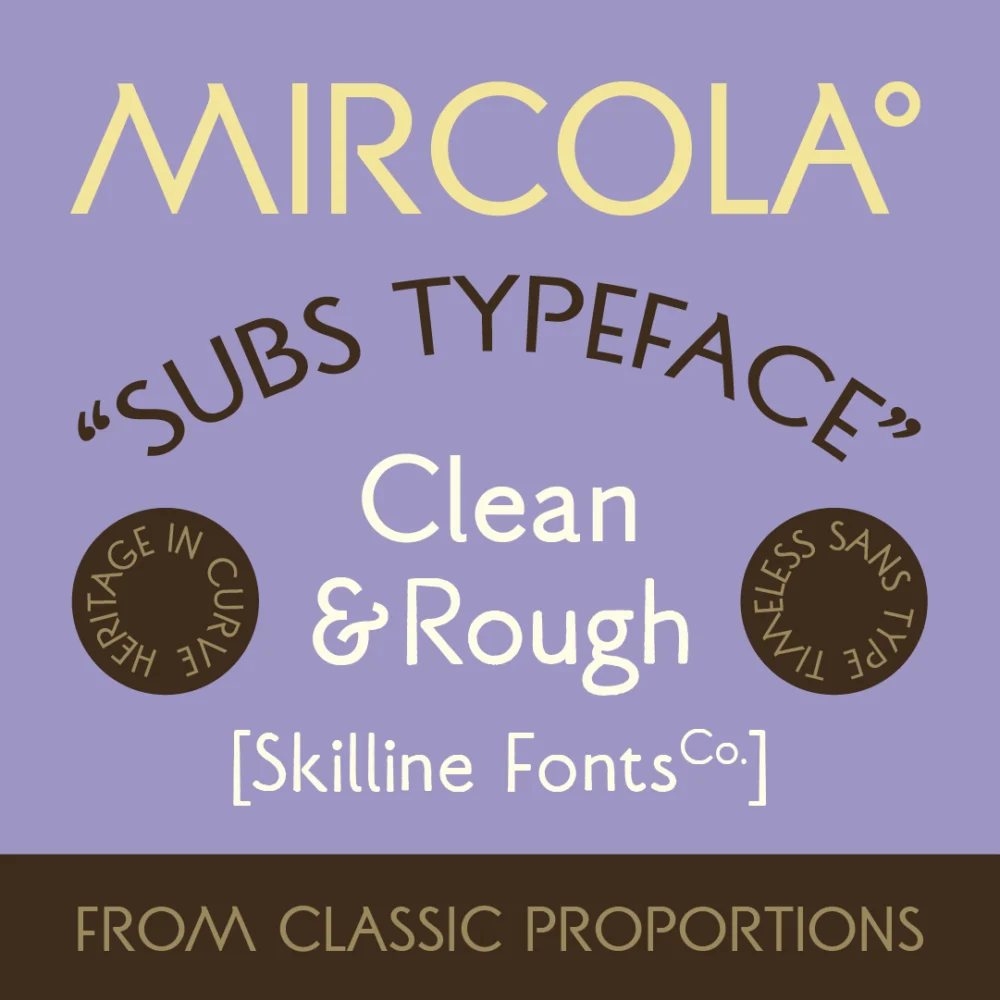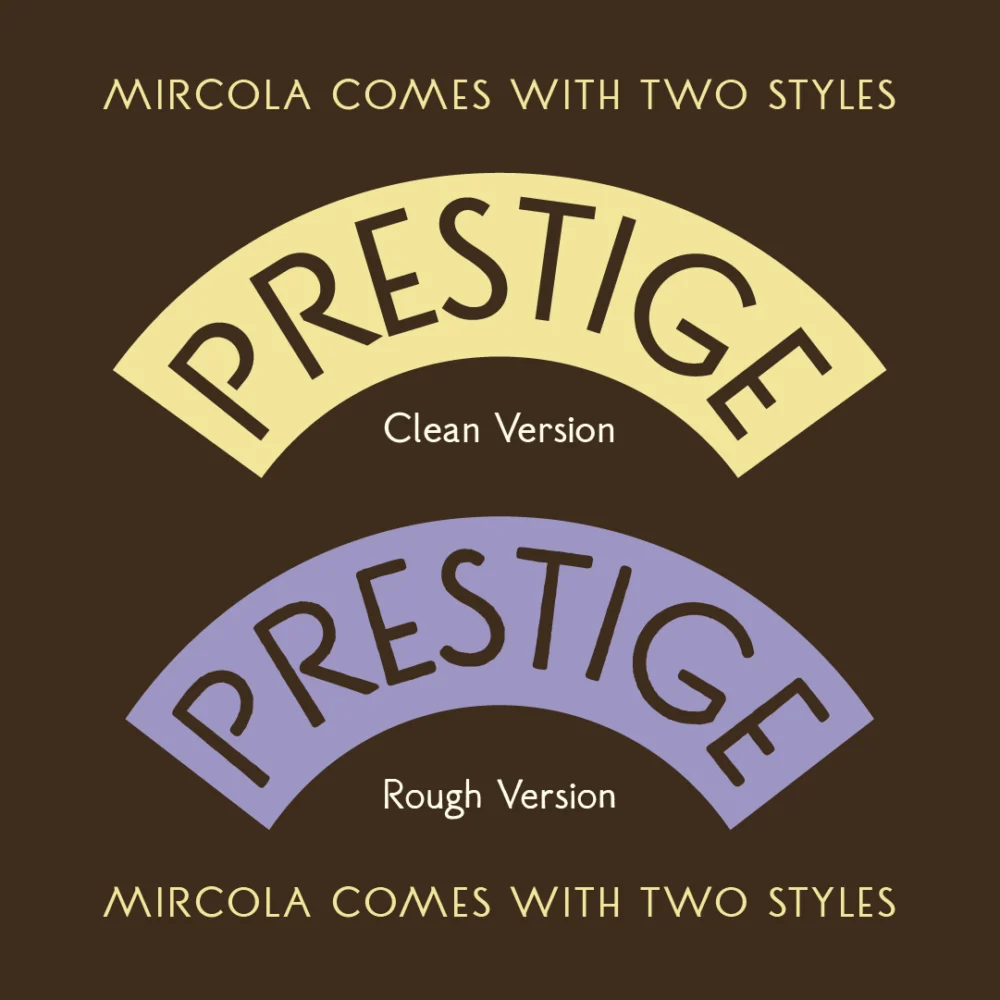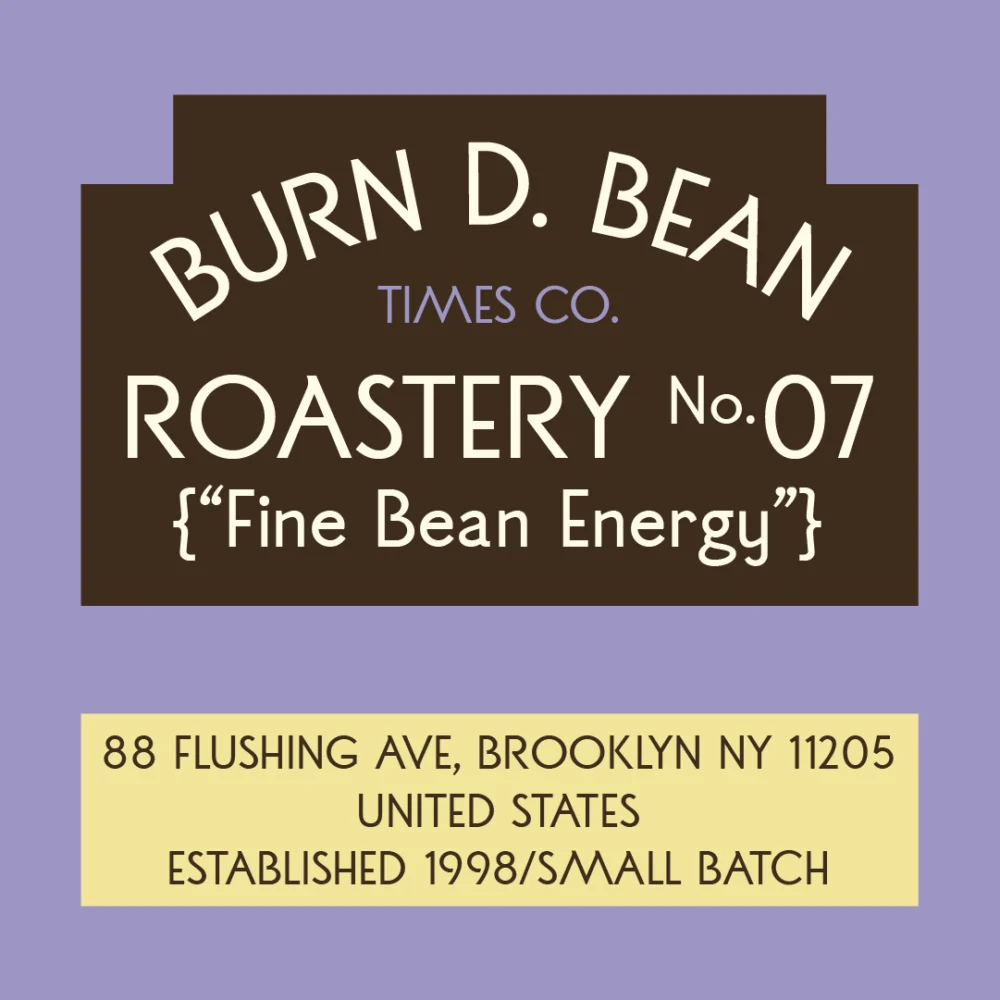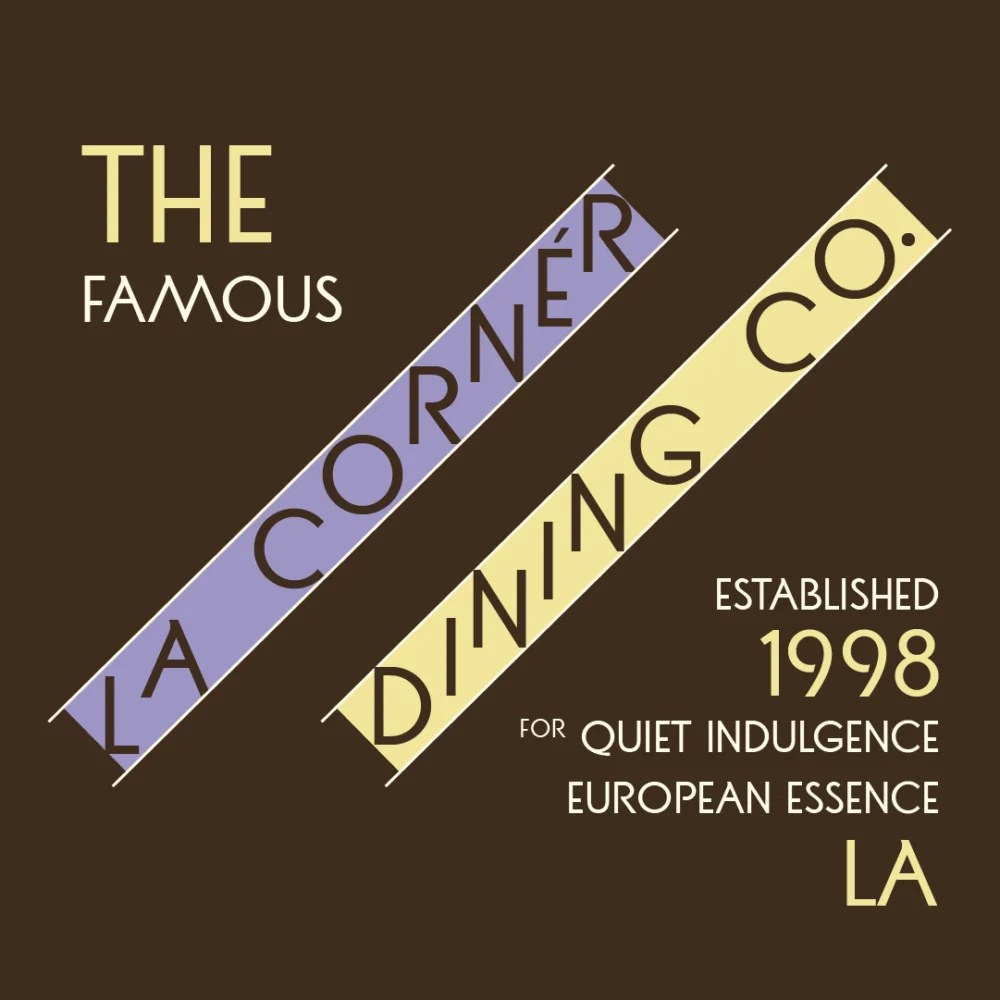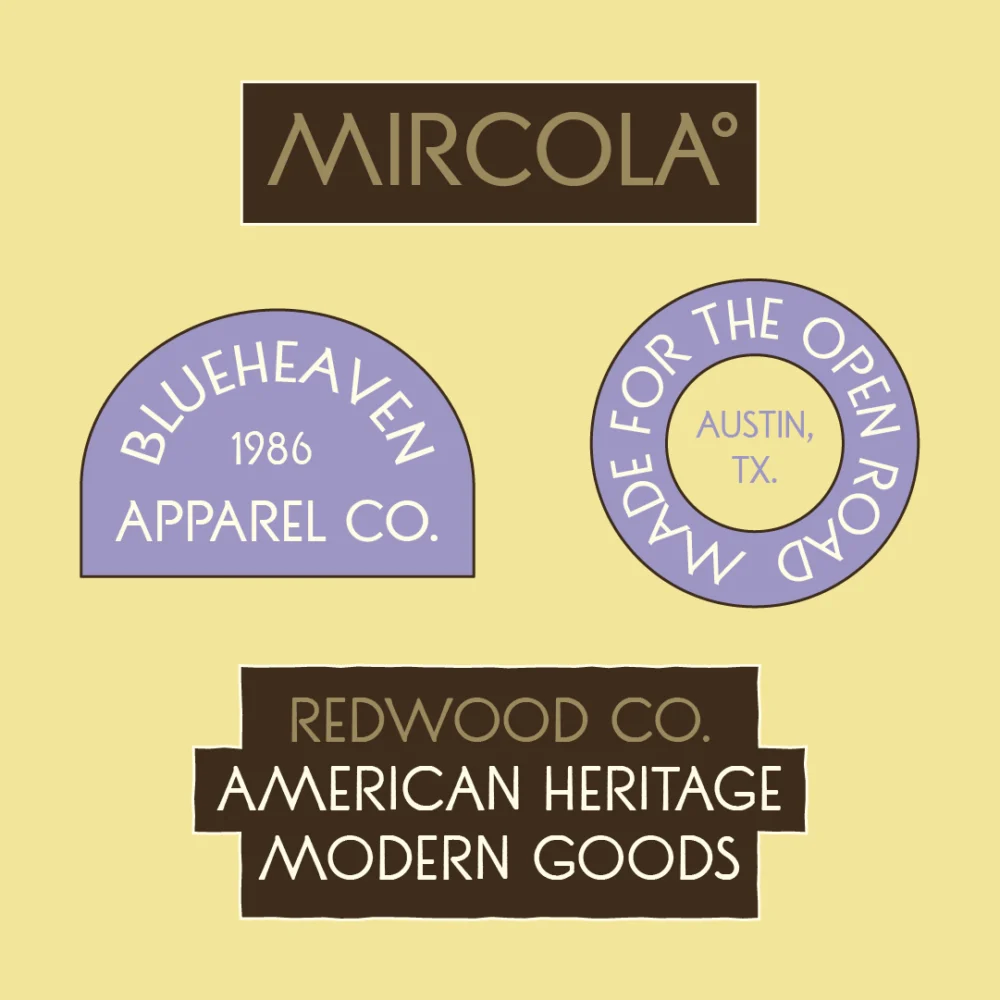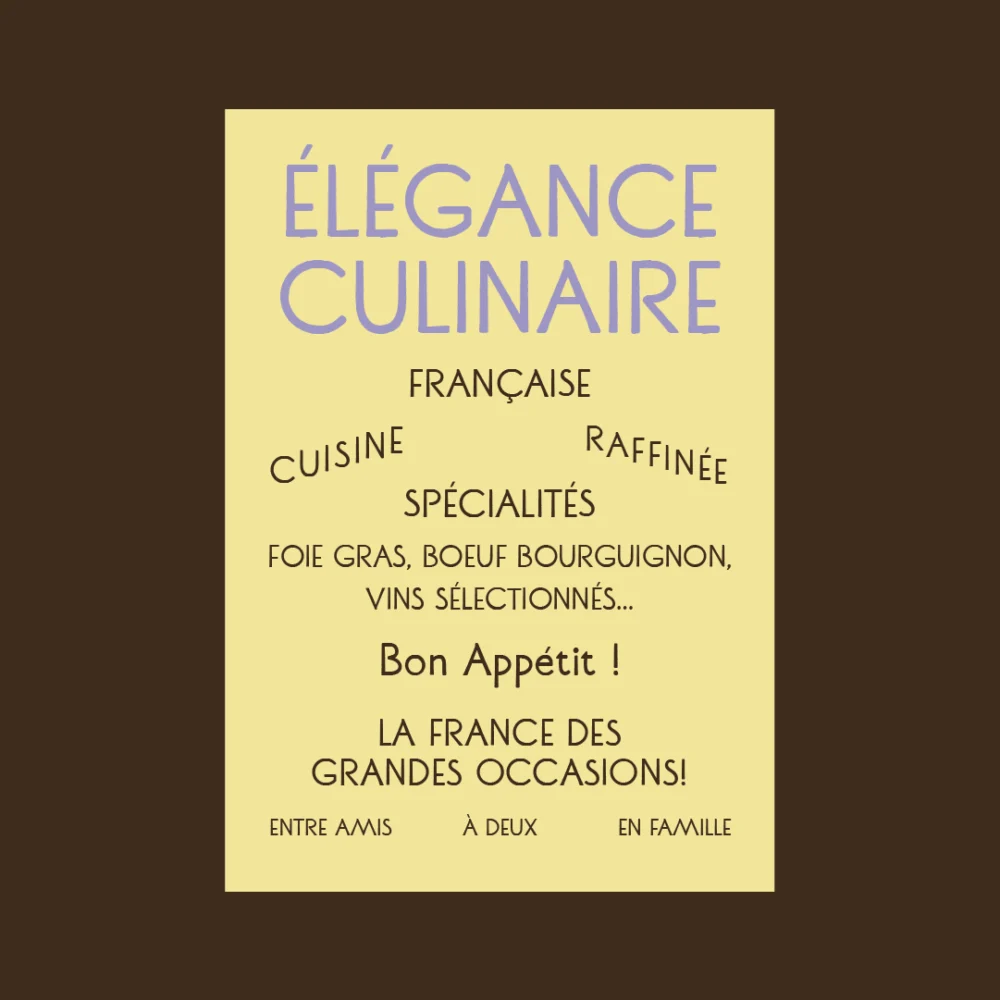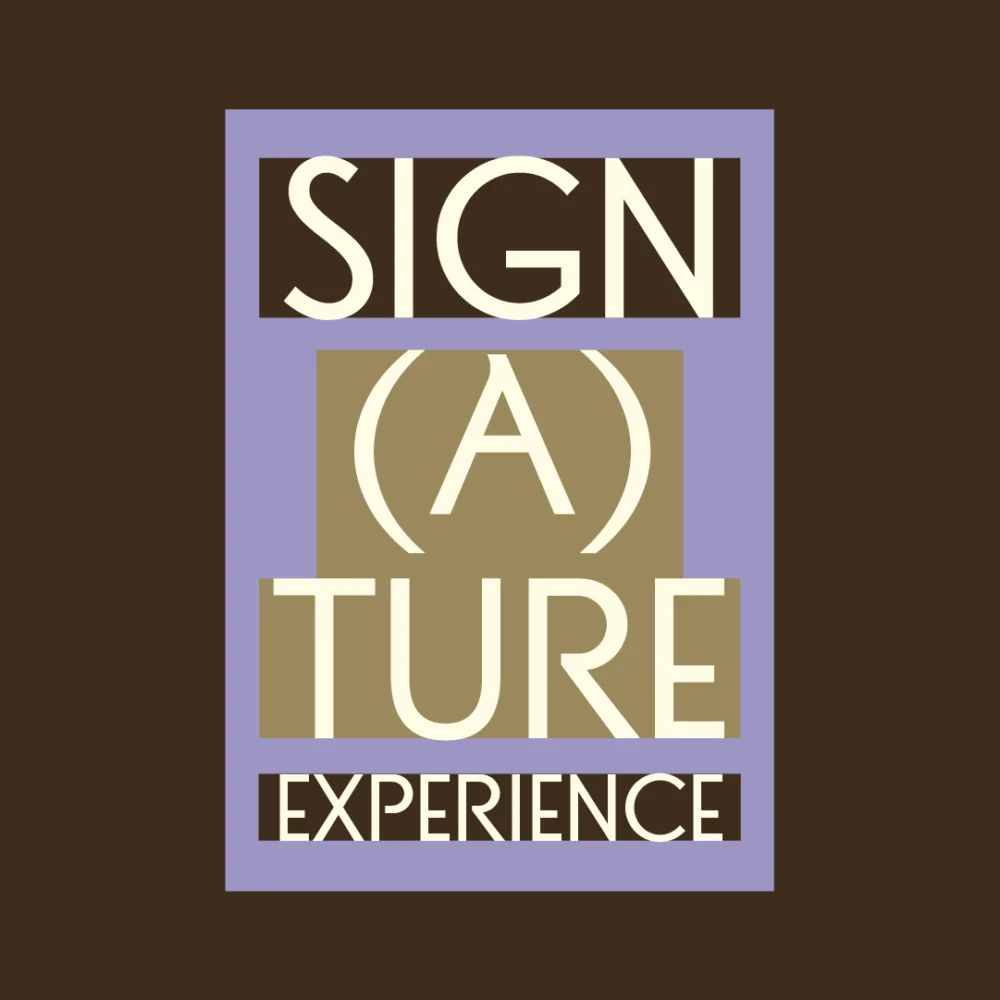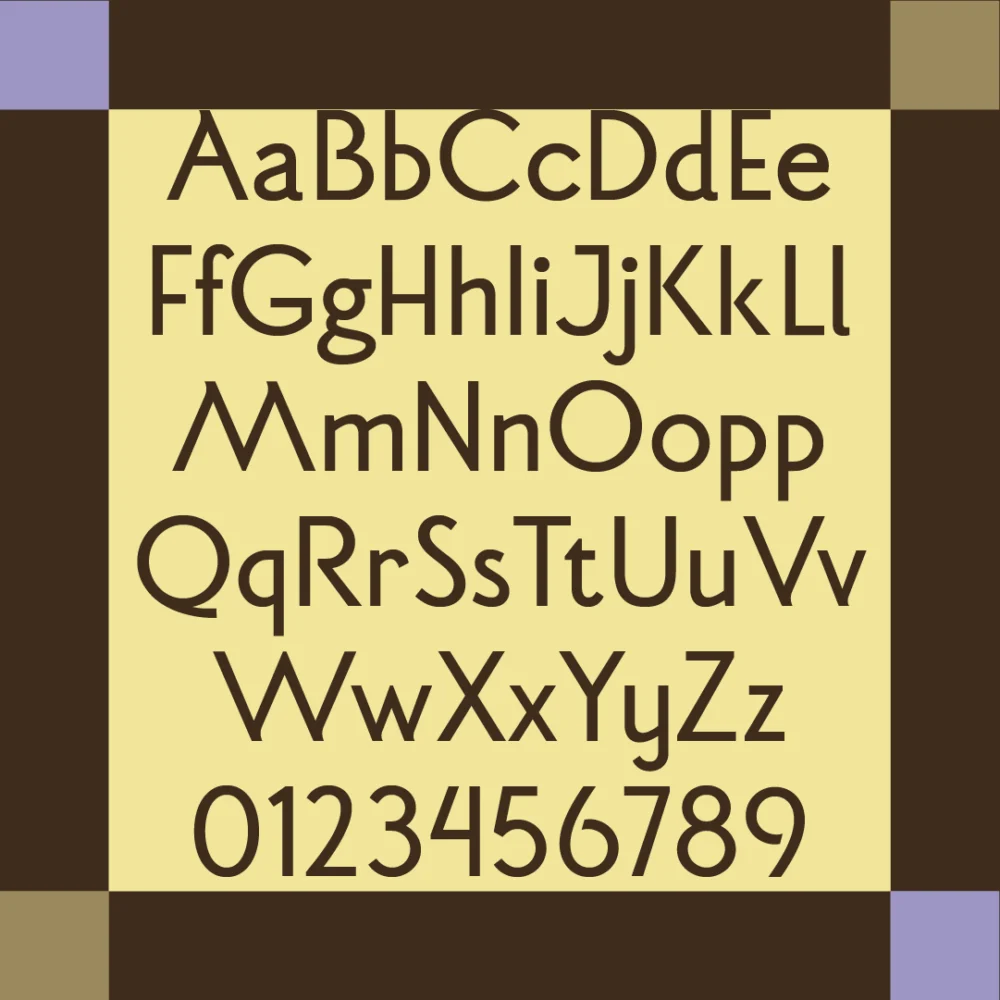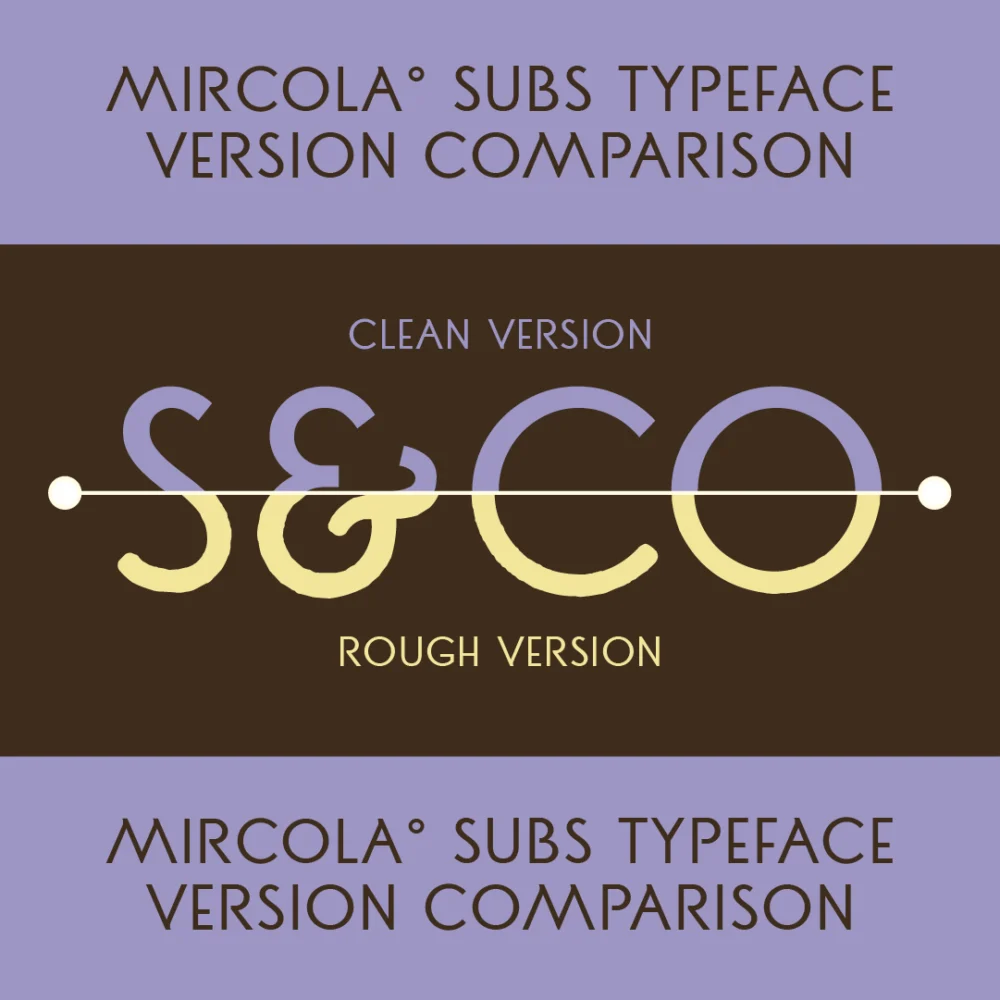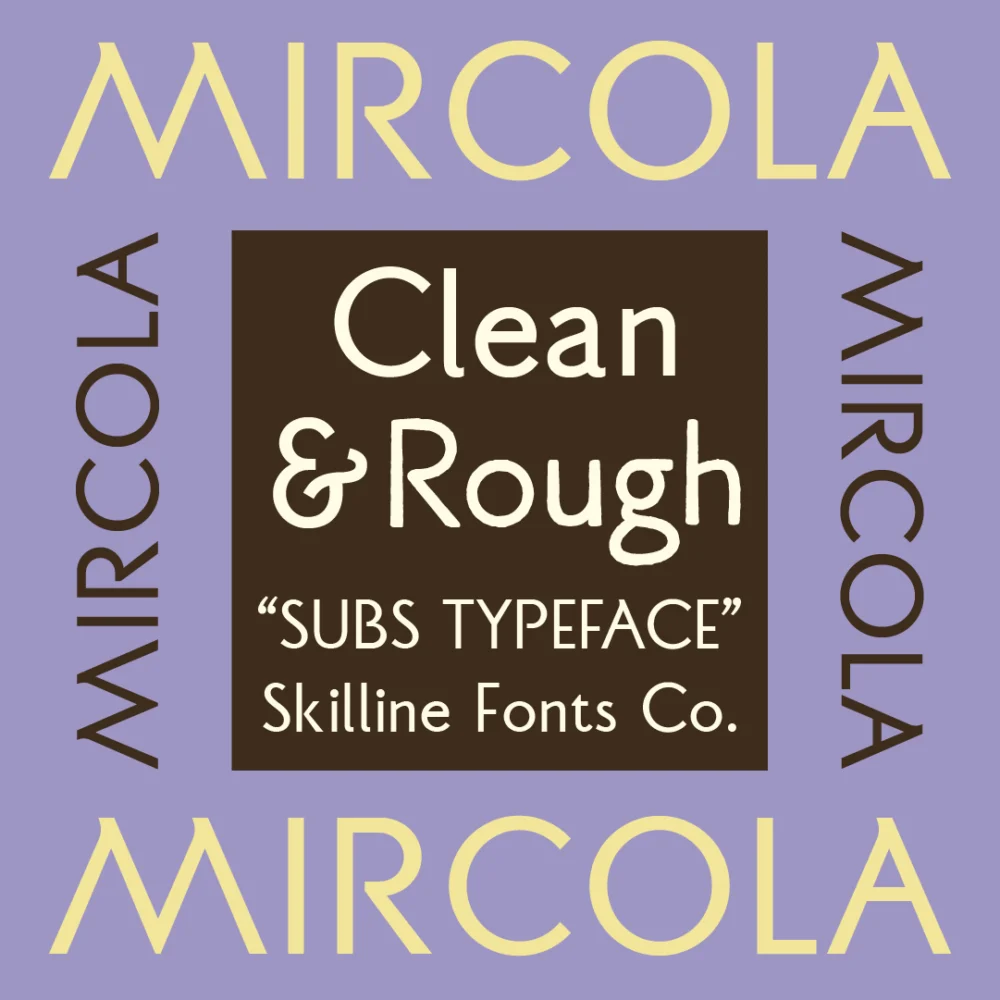
Mircola is a sophisticated heritage sans serif inspired by vintage European signage, classic hospitality typography, and artisan craftsmanship. Combining timeless proportions with subtle handcrafted details, Mircola delivers an elegant visual presence suitable for both contemporary and heritage-focused design projects. Available in Clean and Rough styles, this typeface offers the flexibility to create polished branding systems or authentic vintage-inspired visuals while maintaining excellent readability and professional refinement.
Ideal Applications for Mircola Typeface
- Boutique branding and visual identities
- Hospitality and restaurant design
- Coffee roastery and artisan product packaging
- Luxury lifestyle branding
- Editorial and publishing projects
- Heritage-inspired logos
- Retail and product packaging
- Premium print applications
- Clean & Rough Versions Included
- Uppercase & Lowercase Characters
- Numbers & Punctuation
- Multilingual Support